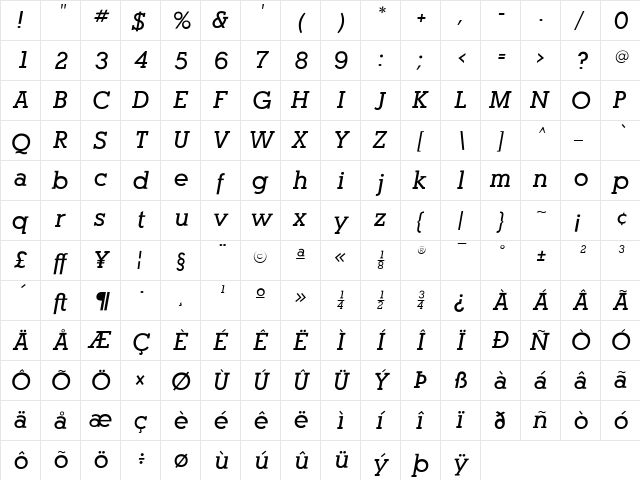
AlexandriaFLF ItalicBold Font Preview
| Foundry | by Richard A. Ware |
| Year | 1986 |
Design Context for AlexandriaFLF Typeface
AlexandriaFLF takes a measured approach to typography — its balanced proportions and neutral character make it a reliable workhorse for both digital and print work. Its italic angle brings a sense of urgency and motion to the letterforms. The heavy weight commands attention and anchors typographic hierarchies.
Pro Tip: Try AlexandriaFLF for annotation and caption copy alongside an upright companion — the contrast in angle creates a dynamic but ordered typographic system.